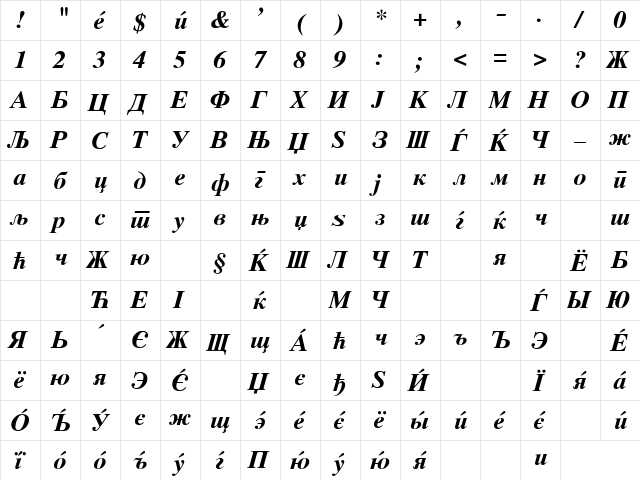
Mak_TimesBIM Italic
Design Context for Mak_TimesBIM Typeface
Mak_TimesBIM takes a measured approach to typography — its balanced proportions and neutral character make it a reliable workhorse for both digital and print work. Its italic angle brings a sense of urgency and motion to the letterforms.